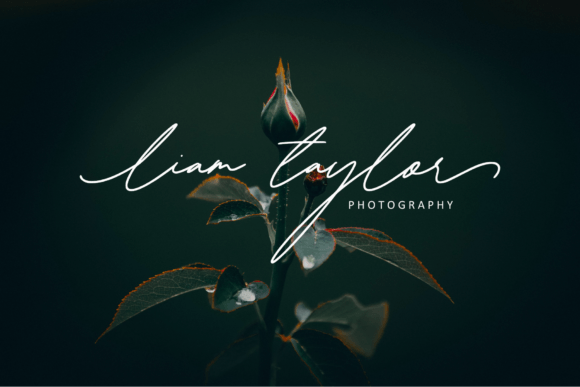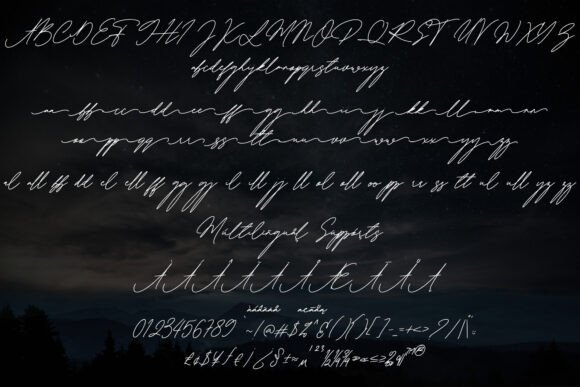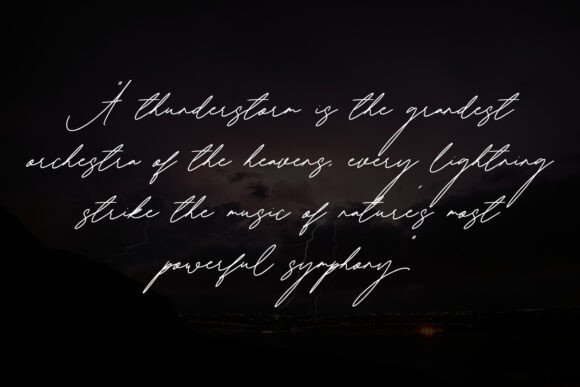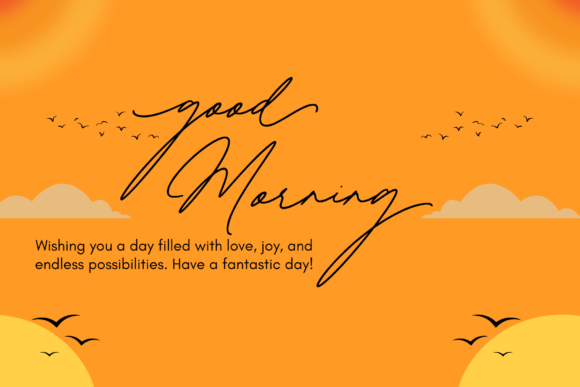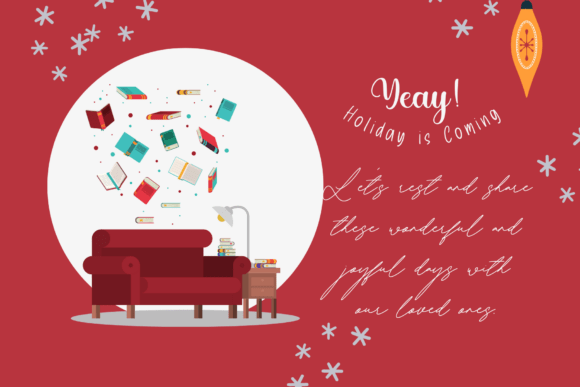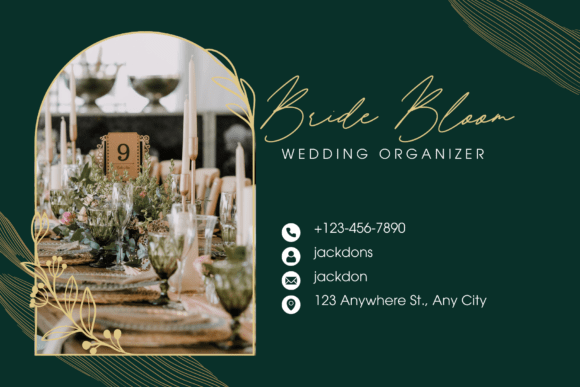
Introducing Blindgates Font: Elevate Your Designs with Sleek Modernity
In the world of typography, fonts play a pivotal role in shaping the visual identity of a brand or design project. With an overwhelming array of typefaces to choose from, finding the perfect blend of style, simplicity, and sophistication can be a daunting task. However, for those seeking a modern, minimalist approach to typography, Blindgates font emerges as a stellar choice. This sleek and contemporary monoline font is meticulously designed to bring a touch of elegance and simplicity to a wide range of design projects.
The Essence of Blindgates Font
Blindgates is characterized by its clean, smooth lines and an elegant flow that resonates with the principles of modern design. The font’s uniform line weight is a defining feature, ensuring clarity and legibility across various applications. Whether it’s for logos, branding, headlines, posters, or digital media, Blindgates offers a versatile solution that meets the demands of both print and digital platforms.
Design Features and Benefits
- Monoline Design: Blindgates boasts a monoline design, which means every line has a consistent thickness. This feature lends the font its sleek and modern appearance, making it perfect for projects that require a clean and sophisticated look.
- Simplicity and Elegance: The font’s simplicity is its greatest strength, allowing it to convey messages with an understated elegance. This makes Blindgates an excellent choice for brands and designers aiming to communicate luxury, professionalism, and modernity.
- Versatility: One of the key advantages of Blindgates is its versatility. It can be seamlessly integrated into various design projects, from corporate branding and logos to advertising posters and digital content.
- Legibility: The uniform line weight and clean design of Blindgates ensure high legibility, even at smaller sizes. This feature is particularly beneficial for digital applications where readability across different devices is crucial.
Applications of Blindgates Font
The applications of Blindgates are vast and varied. Here are a few areas where this font truly shines:
- Branding and Logos: For businesses looking to establish a modern and sophisticated brand identity, Blindgates offers a typographic solution that can be tailored to fit various brand personalities.
- Print Design: In print design, Blindgates can elevate posters, flyers, brochures, and business cards with its clean and elegant appearance.
- Digital Design: For digital platforms, including websites, mobile apps, and social media graphics, Blindgates provides a stylish and readable typeface that enhances user experience.
Why Choose Blindgates?
In a sea of typefaces, Blindgates stands out for its unique blend of modernity, simplicity, and elegance. Here are a few reasons why designers and crafters might prefer Blindgates over other fonts:
- Unique Aesthetic: Blindgates offers a fresh and contemporary aesthetic that can help brands and designers differentiate themselves.
- Easy to Pair: The font’s neutral design makes it easy to pair with other typefaces, allowing for creative flexibility in multi-font designs.
- Support for Various Languages: As a comprehensive font, Blindgates likely includes support for various languages, making it a practical choice for global brands.
Blindgates font represents a significant addition to the world of typography, offering a sleek, modern, and versatile solution for designers and crafters. Its monoline design, combined with its elegance and simplicity, makes it an ideal choice for a wide range of design projects. Whether you’re crafting a brand identity, creating digital content, or working on print materials, Blindgates brings a subtle yet profound elegance to every letter. Embrace the modernity and sophistication that Blindgates has to offer and elevate your designs to new heights of visual excellence.